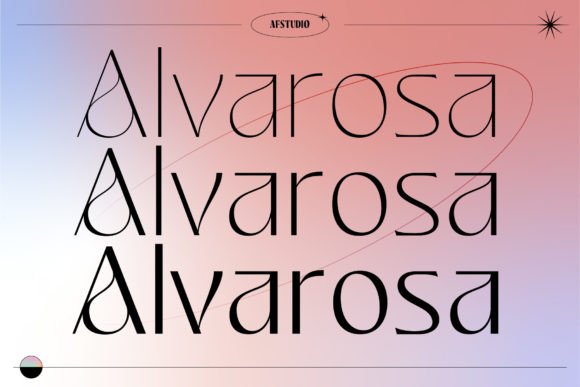
Introducing Alvarosa, the embodiment of poise and grace in the realm of display fonts. A creation of Adam Fathony, this beautiful, elegant, and slender masterpiece is inspired by the surge of minimalist-looking display fonts gracing our social media feeds. Yet, unlike its peers, Alvarosa stands out with its quirky elements that effortlessly maintain readability. With its powerful presence, Alvarosa will leave an unforgettable mark on your creative projects, whether they be logos, wedding invitations, headings, t-shirts, letterheads, signage, labels, news, posters, or badges.
Immerse yourself in the versatility of Alvarosa, a font that transcends the boundaries of convention. Its delicately thin strokes exude a sense of refinement and sophistication, while its unique serifs add a touch of playfulness and intrigue. With Alvarosa, you have the power to transform your designs into captivating works of art, guaranteed to allure and inspire your audience.
Explore the myriad possibilities that await you with Alvarosa. Enchant your logos with a touch of elegance, making them unforgettable symbols of your brand's identity. Craft wedding invitations that radiate romance and charm, leaving a lasting impression on your guests. Create headings that demand attention, grabbing the eyes of readers and drawing them into your captivating content. Unleash your creativity on t-shirts, letterheads, and signage, imbuing them with a distinct personality that sets you apart from the crowd.
Let Alvarosa guide you on a creative journey like no other. Embrace its versatility and let your imagination soar. Elevate your designs to new heights of beauty and sophistication, leaving your audience captivated and inspired.